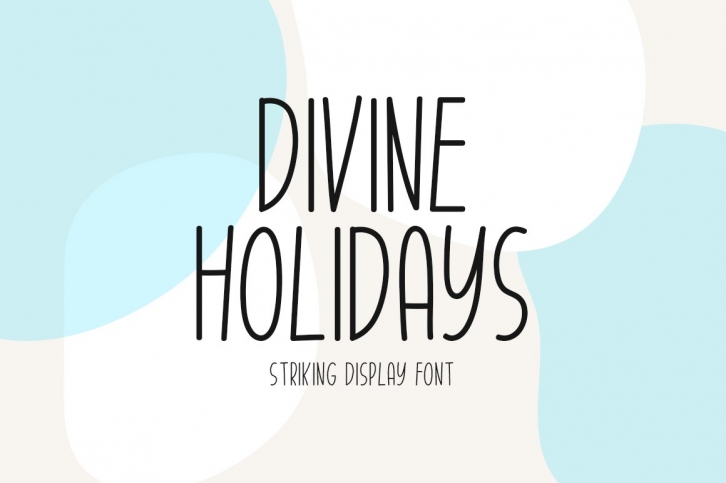
Divine Holidays is a gorgeous font that was realeased on November 17, 2022. The font can be used in many style contexts and design environments. Perfect for invitations, magazines, websites, logos, and more! It was designed by Seemly Fonts and the file size is 15.39 MB. Thanks for checking out this font!